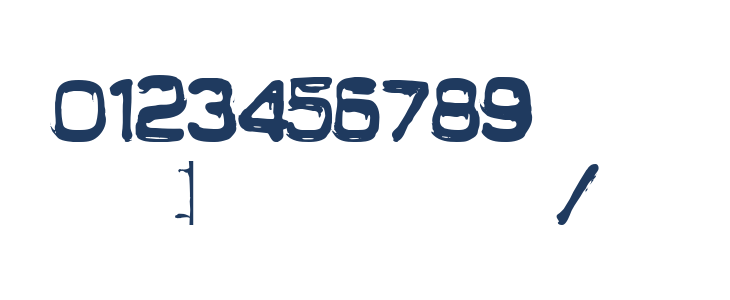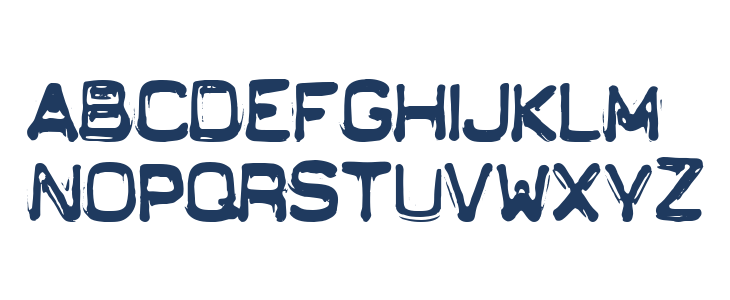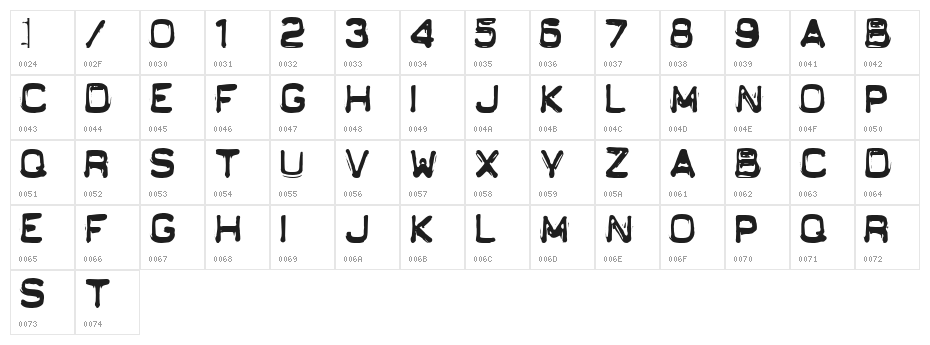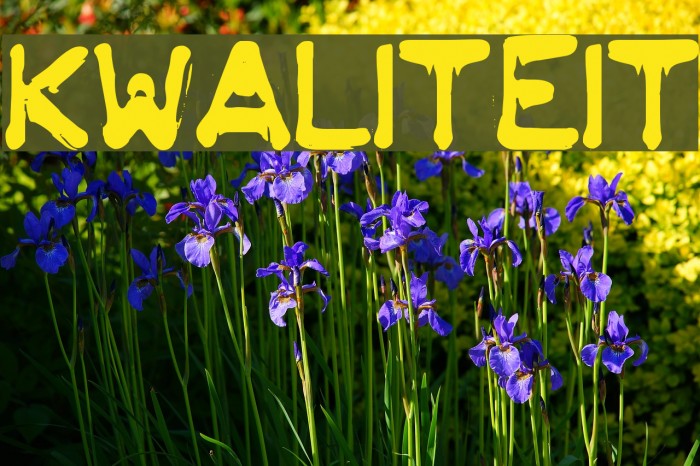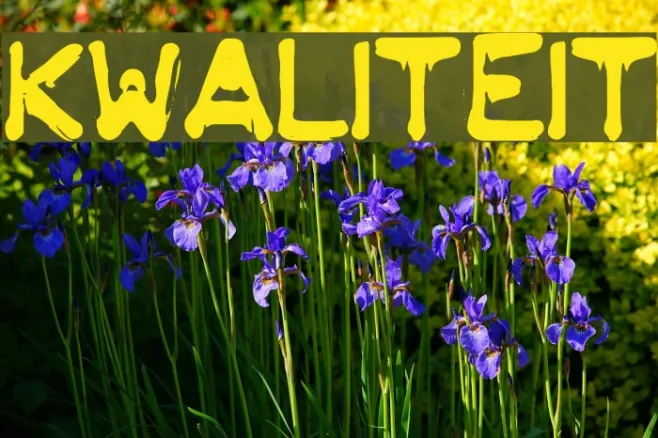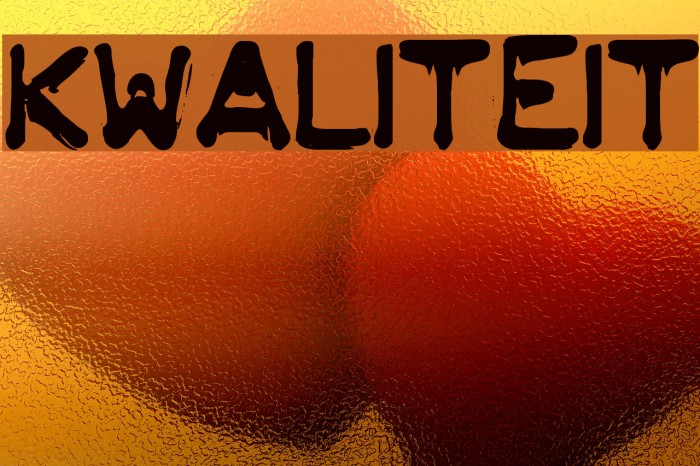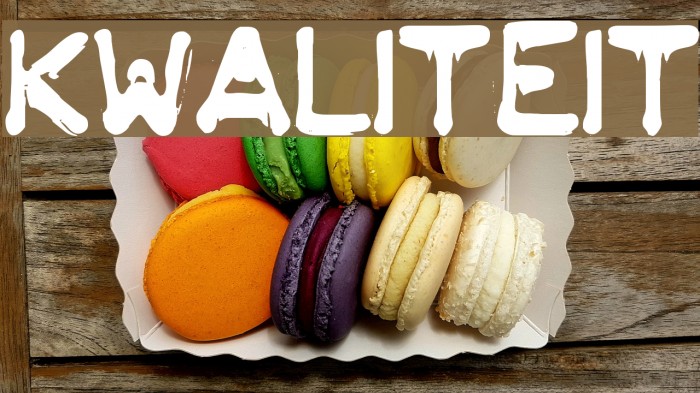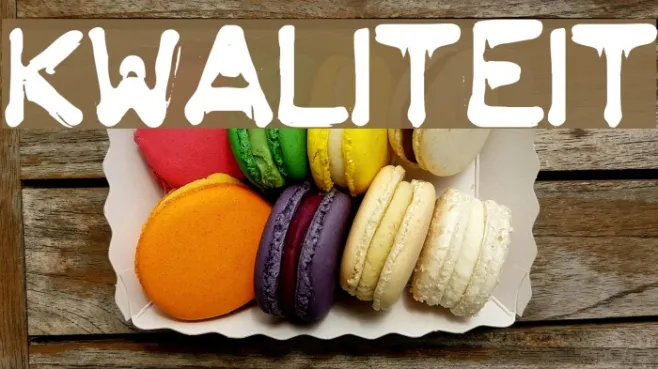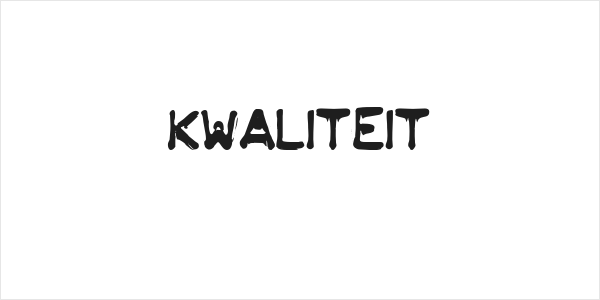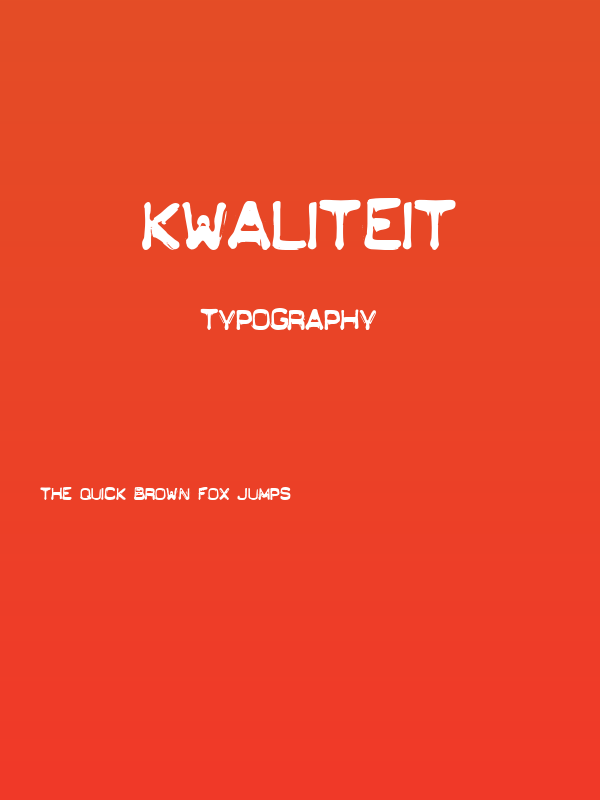
KWALITEIT Font
KWALITEIT Description
This font features a bold and dynamic style with a distressed, grunge-like appearance. The characters have a rough, textured look, giving them a unique and edgy feel. The uppercase letters are prominent and bold, while the numbers maintain the same rugged aesthetic. The font's irregular edges and varying stroke thickness contribute to its distinctive, handcrafted appearance. This style is particularly effective for creating a strong visual impact and conveying a sense of raw energy.
| Overall Style | Grunge, Edgy, Handcrafted |
| Proposed Projects | Ideal for music album covers, posters, streetwear branding, and edgy graphic design projects. |